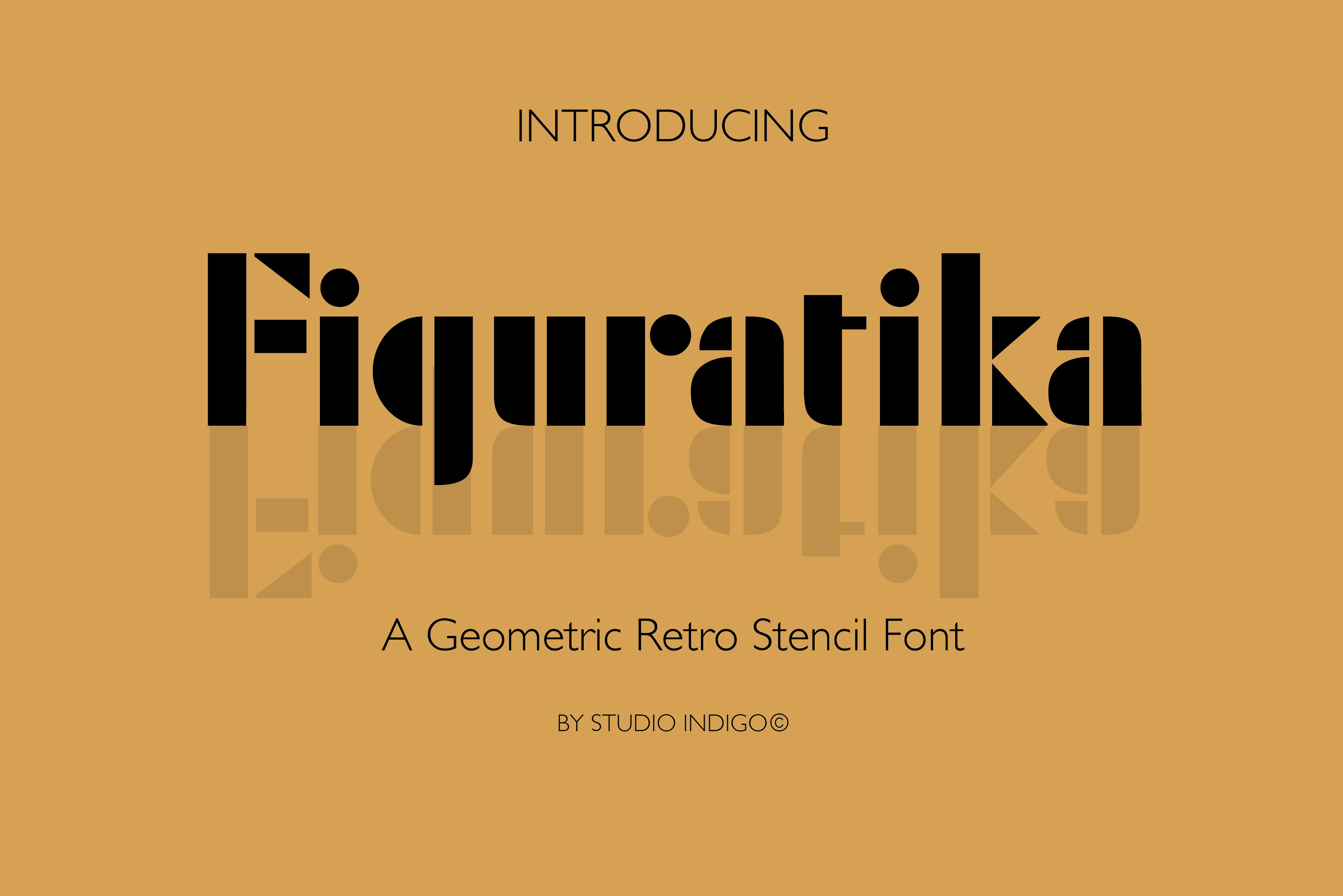
Figuratika a retro stencil font
Figuratika is a bold geometric Art Deco stencil font with a retro feeling. It was designed as a display font and is best for shorter texts, titles, logos, posters etc.